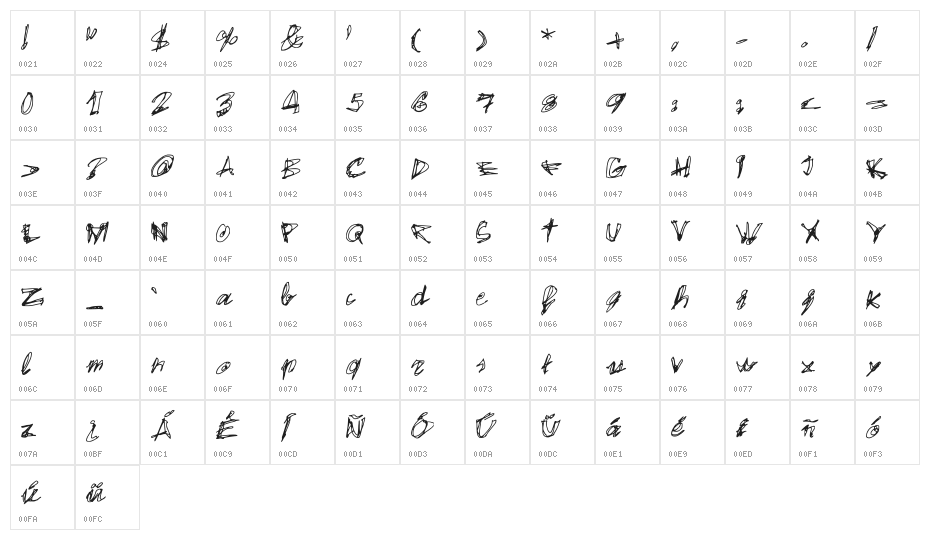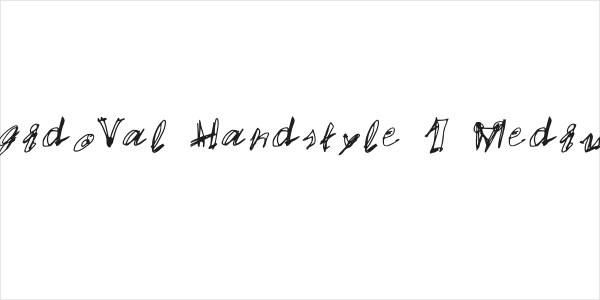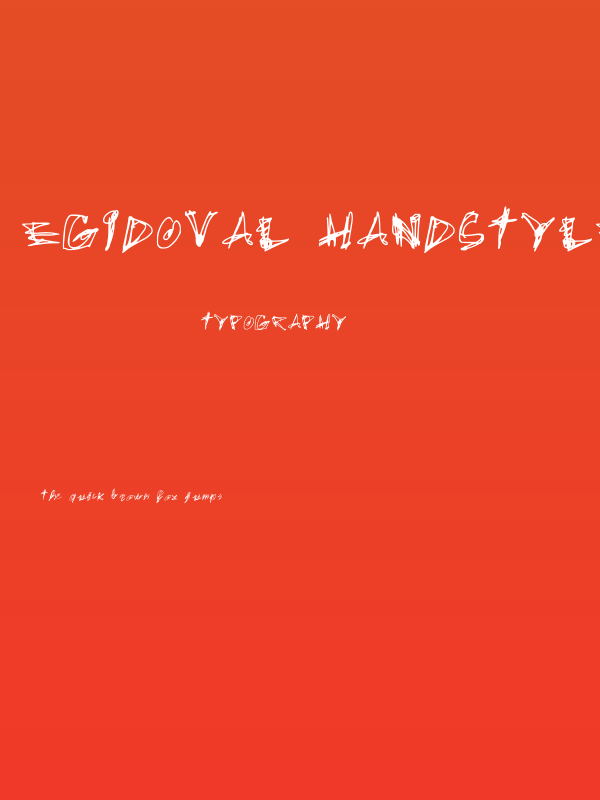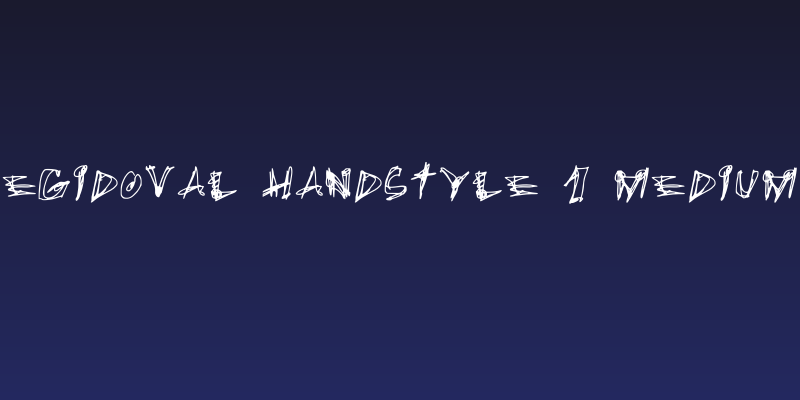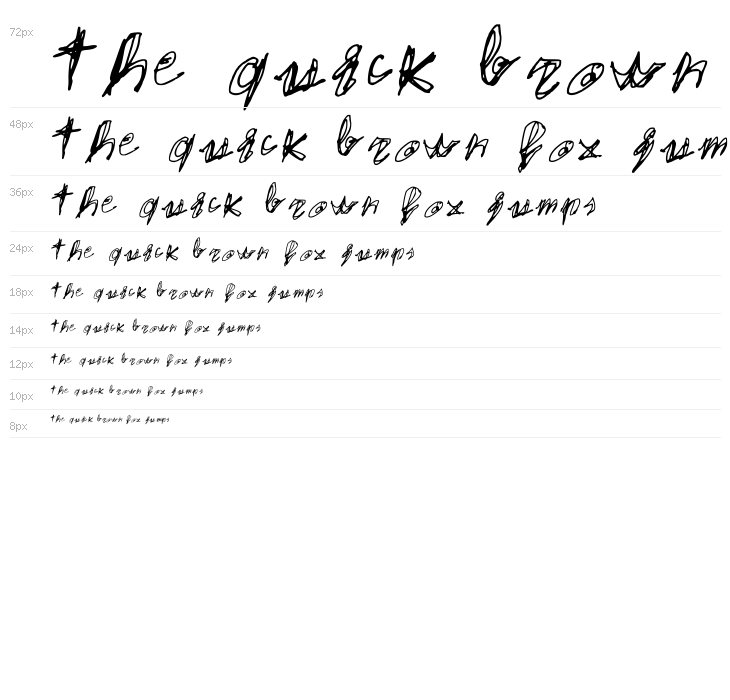
EgidoVal Handstyle 1 Medium Font
EgidoVal Handstyle 1 Medium Description
This font features a dynamic and expressive hand-drawn style, characterized by its bold, irregular strokes and energetic flow. The letters are crafted with a sense of spontaneity, giving them a raw and artistic appearance. Each character is unique, with varying line thicknesses and angles, creating a sense of movement and individuality. The uppercase and lowercase letters maintain a consistent style, while the numerals and special characters complement the overall aesthetic. This font is perfect for projects that require a personal touch or an edgy, creative vibe.
| Proposed Projects | Ideal for graffiti art, album covers, creative posters, and edgy branding projects. |